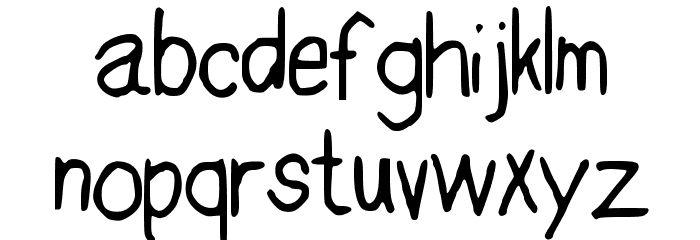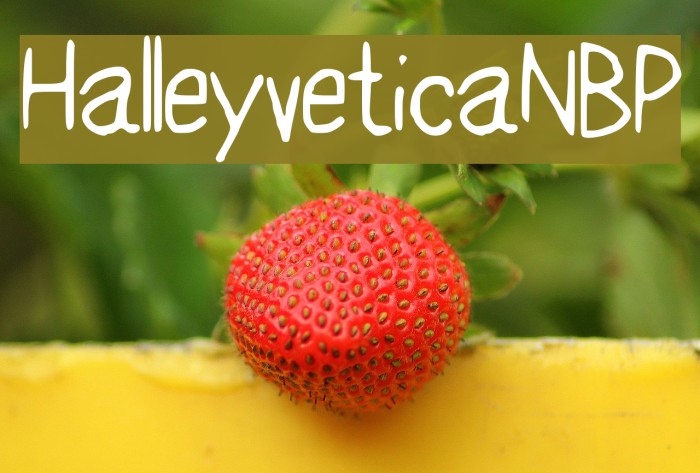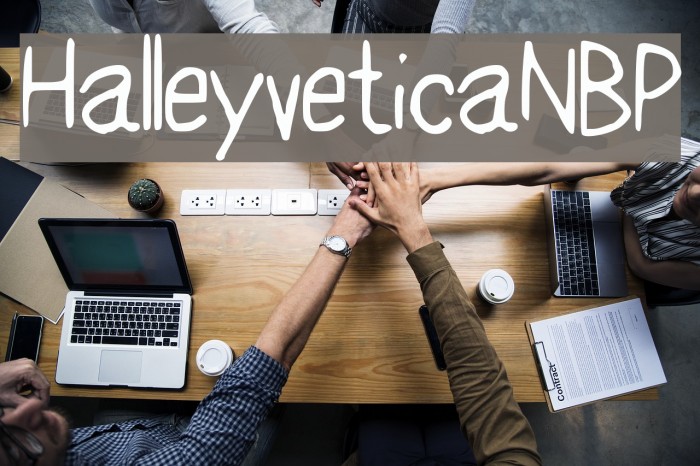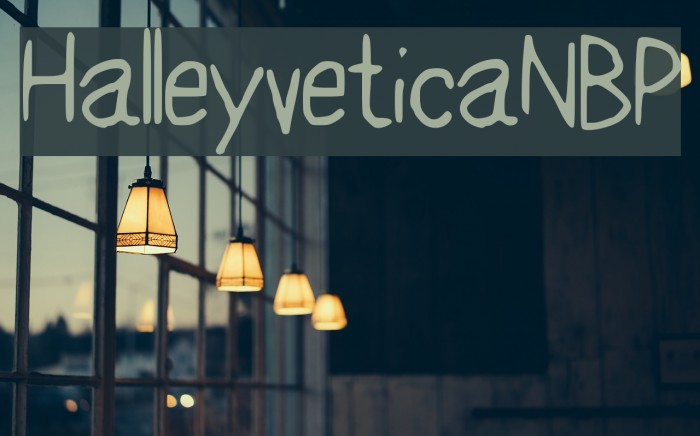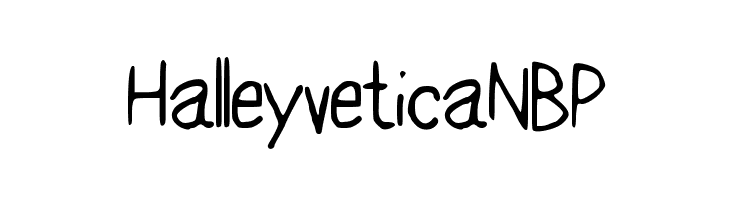
HalleyveticaNBP Font
This font features a playful and casual handwritten style, characterized by its smooth curves and slightly irregular strokes. The uppercase letters are bold and rounded, giving a friendly and approachable feel. The lowercase letters maintain a consistent flow, with some characters having unique, quirky elements that add to the font's charm. The numbers are clear and legible, matching the overall style of the alphabet. Special characters are included, maintaining the same playful aesthetic. This font is ideal for projects that require a personal touch or a fun, informal vibe.
A playful, handwritten font with smooth curves and a casual style.
- Proposed Projects: Great for greeting cards, children's books, casual branding, and social media graphics.
- Overall Style: Casual, Playful
- Use Case: Headlines, Informal text, Branding